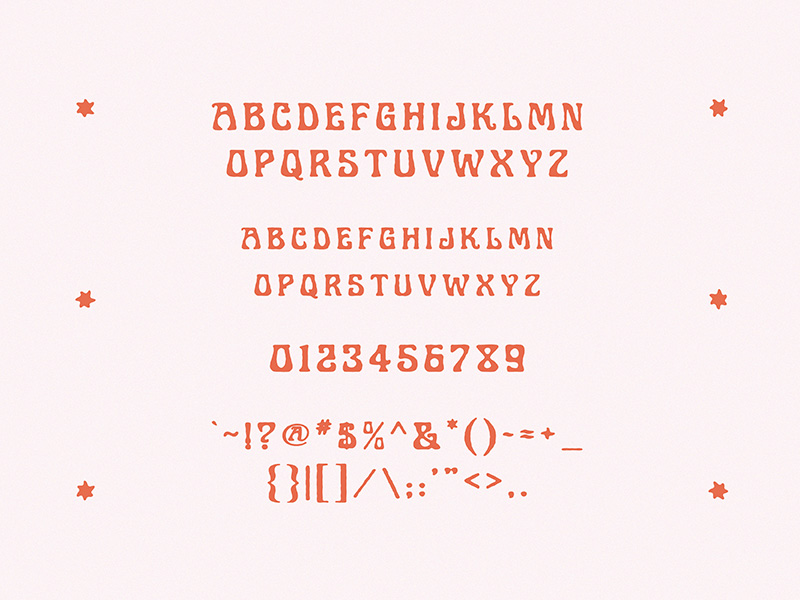
Art Nuvo Free Display Font
Art Nuvo Free Display Font is a rough psychedelic font by Phil MacIsaac. By using this font, you can add some trippy vibe to your work that is best on vintage theme design. The font is suitable for logo, prints, event poster and so much more!